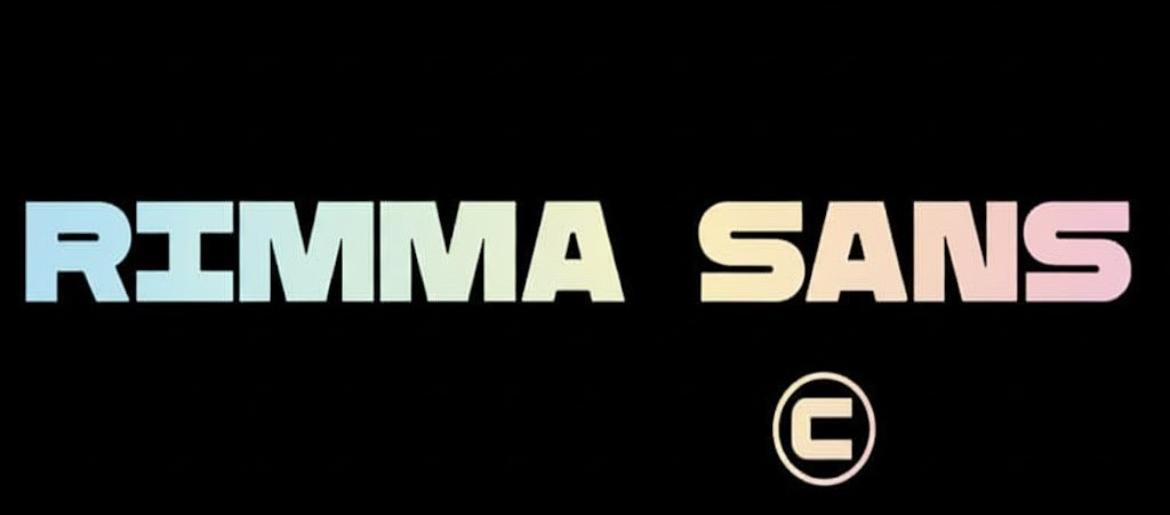
Rimma Sans Font
Rimma Sans Font showcases Lesha Pushkarev’s architectural vision through bold display typography inspired by concrete constructions and monumental structures. This striking typeface features solid, powerful letterforms juxtaposed with narrow punctuation marks that reflect the harmonious relationship between metal frameworks and concrete foundations found in industrial design.
Rimma Sans’s grotesque character and industrial strength make it exceptionally effective for impactful headlines, urban branding projects, architectural presentations, and any design requiring commanding typographic presence with structural integrity and contemporary edge.